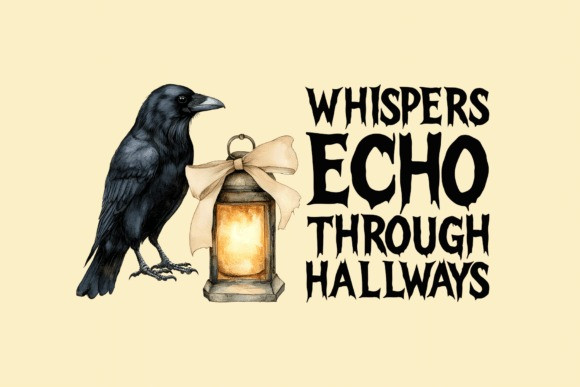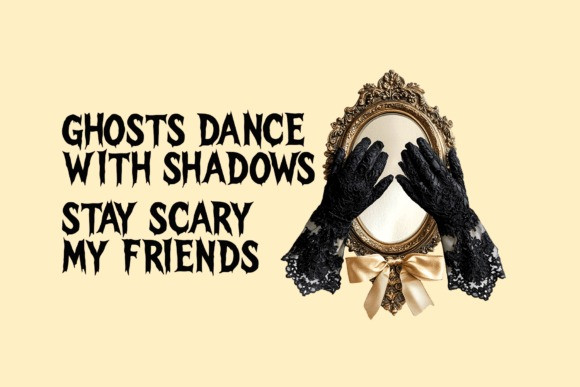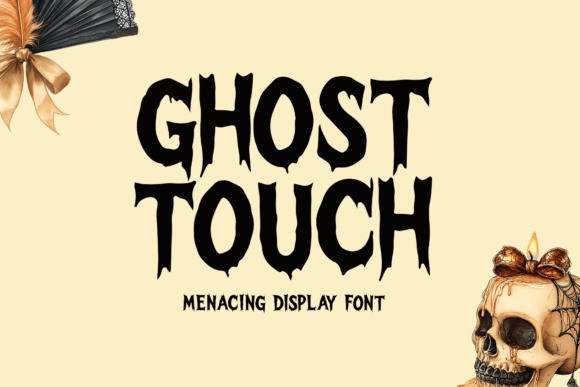
Ghost Touch Font
Ghost Touch Font is a distinctive haunted display typeface ideal for a wide range of creative projects. It works seamlessly for logos, stationery, apparel, web headers, flyers, posters, and more—adding a mysterious flair to every design.